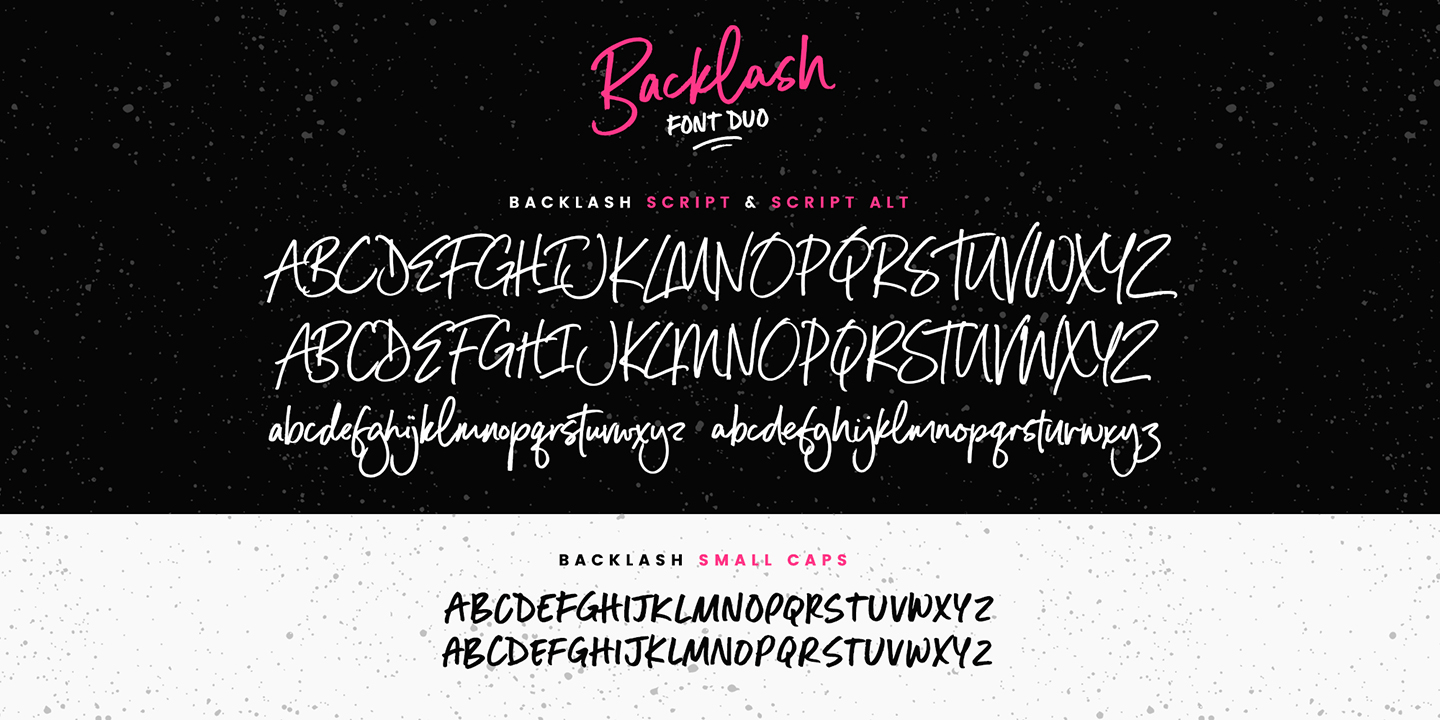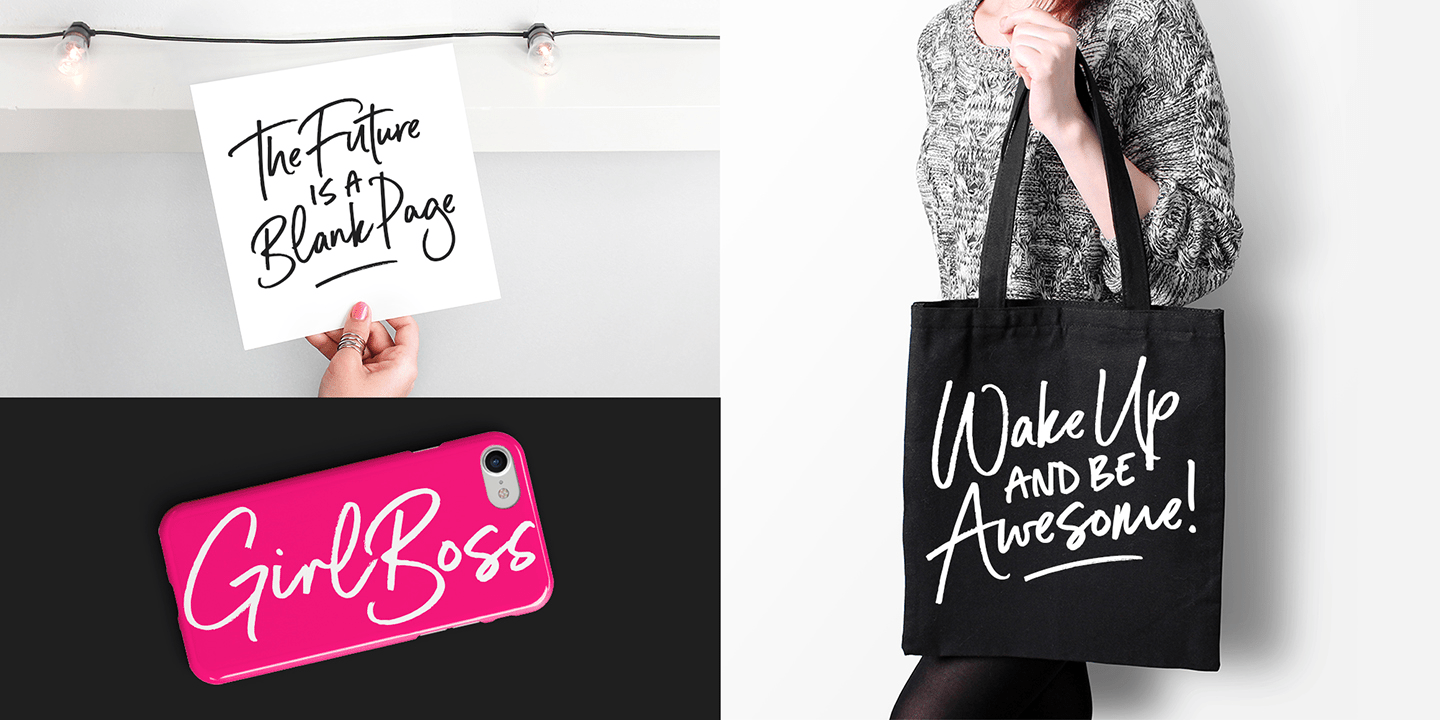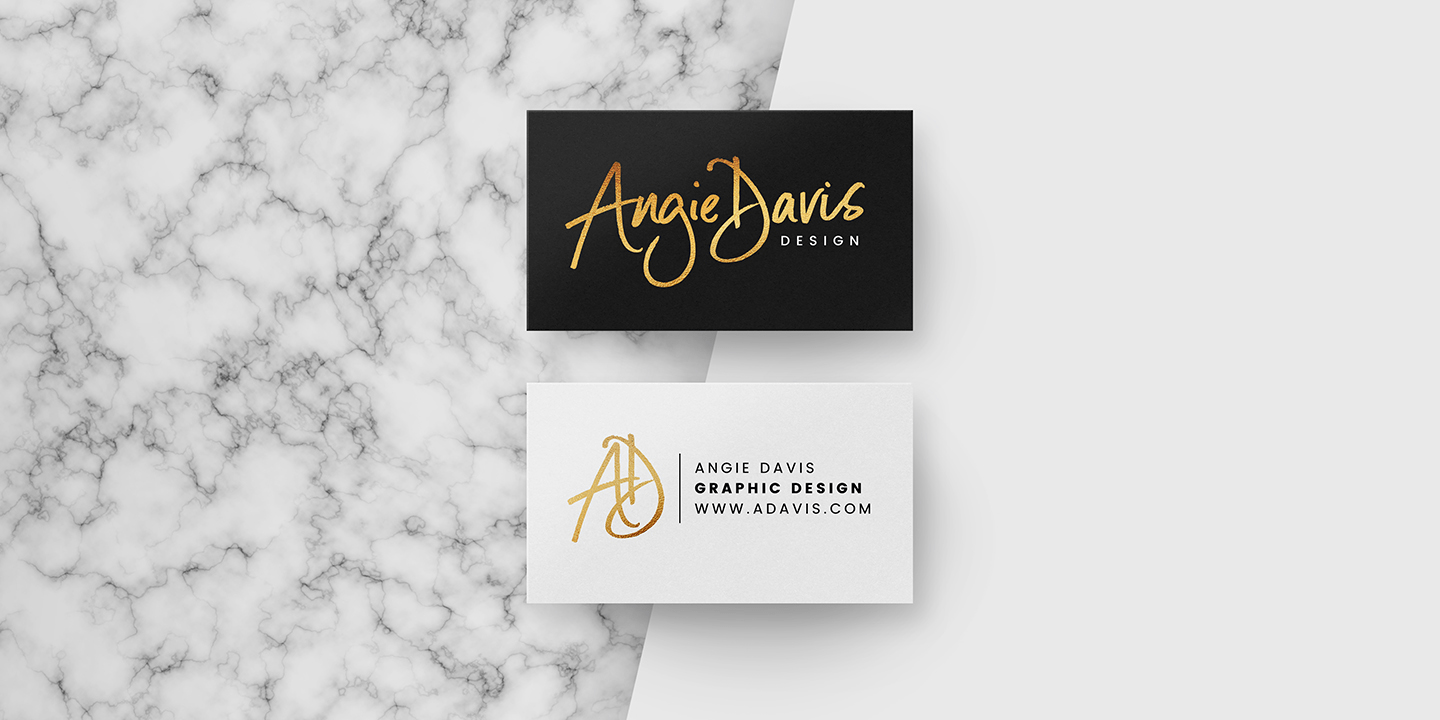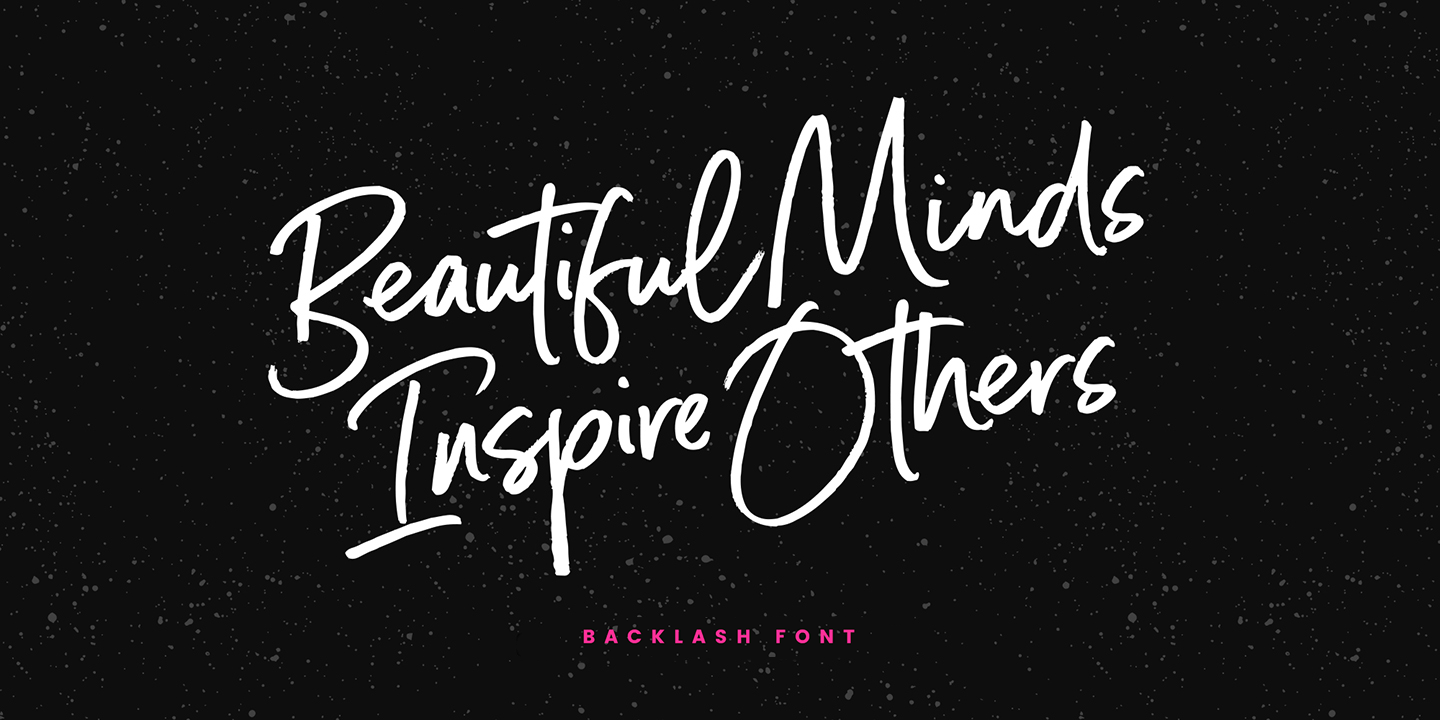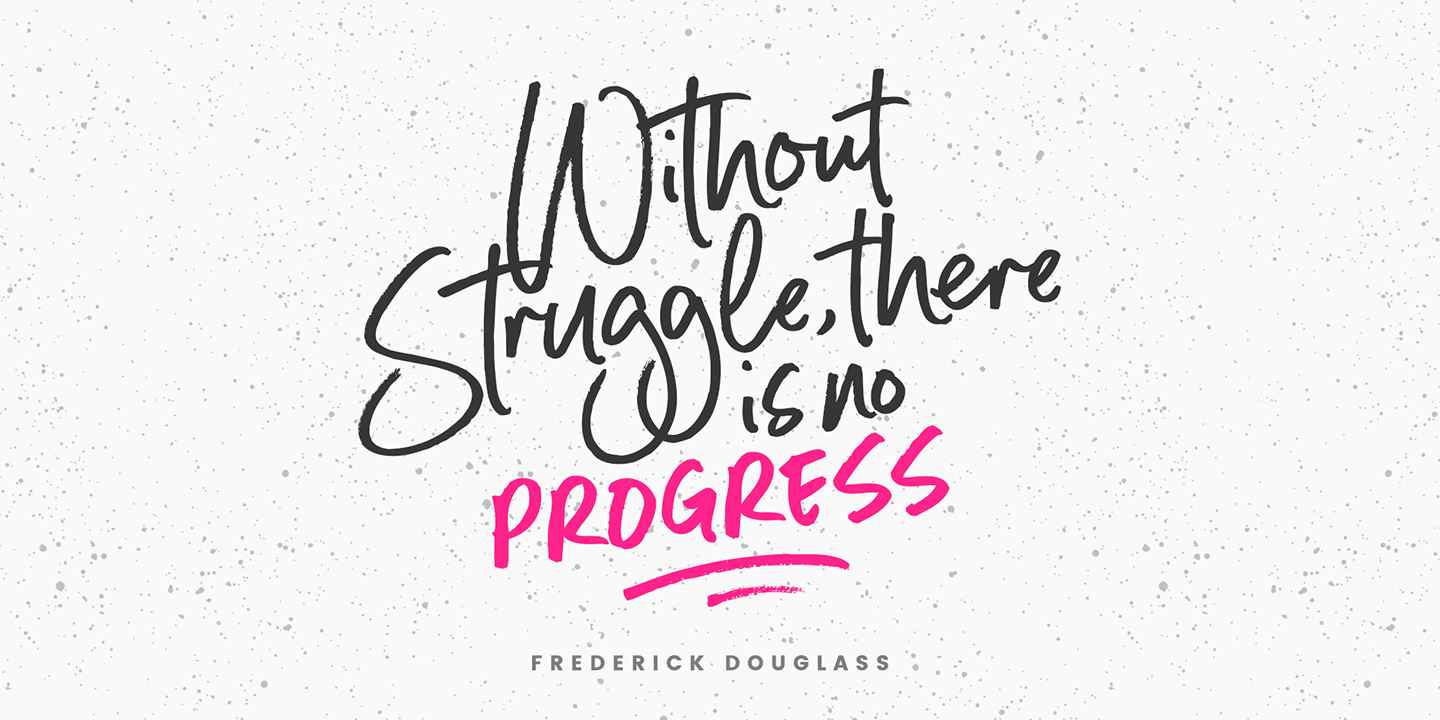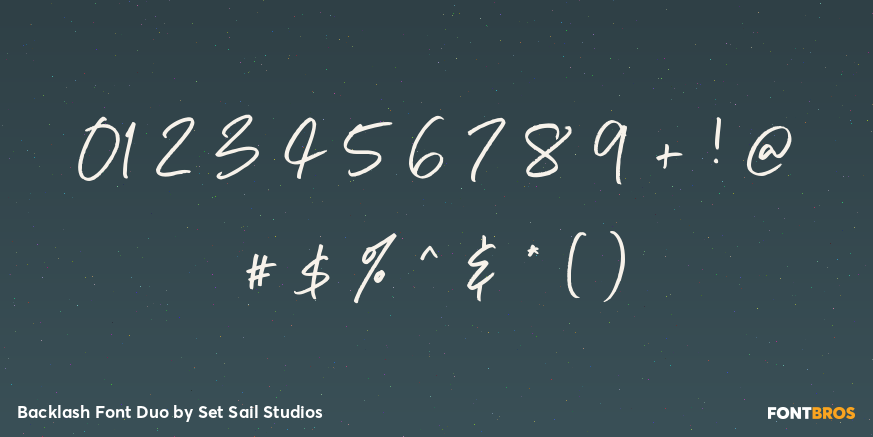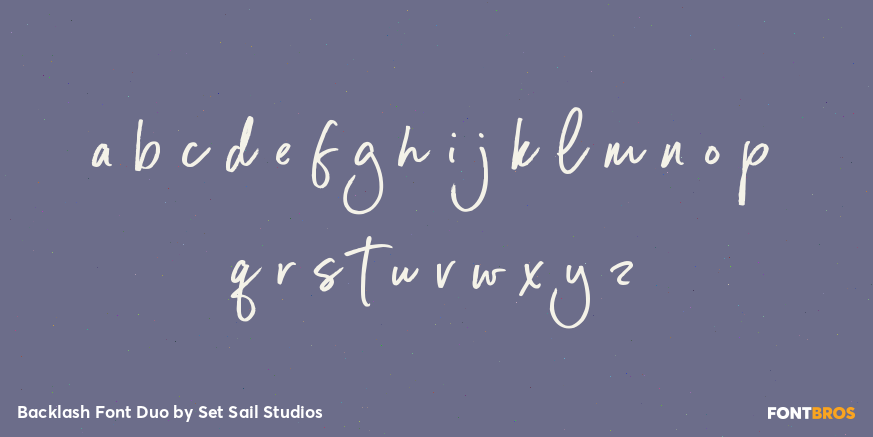
Backlash Font Duo
Font Family by Set Sail Studios
Backlash Font Duo is a modern handwritten family with an artistic, brush-script feel and an easy, expressive rhythm. Its connected strokes, smooth curves, and casual flow give layouts a friendly, stylish voice that feels both polished and personal.
This family includes 3 fonts: Backlash Script, Backlash Script Alt, and Backlash Small Caps. That mix makes it useful for pairing a lively script with a complementary all-caps look, whether you're building branding, social graphics, packaging, posters, or other display pieces that need a more handcrafted touch.
Created by Set Sail Studios, this trio balances playful energy with clean presentation, making it a strong choice for designers who want lettering that feels modern, informal, and full of movement.